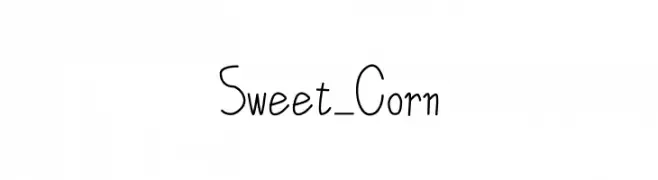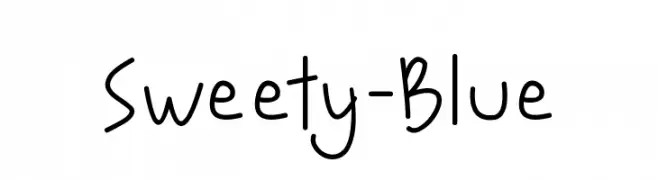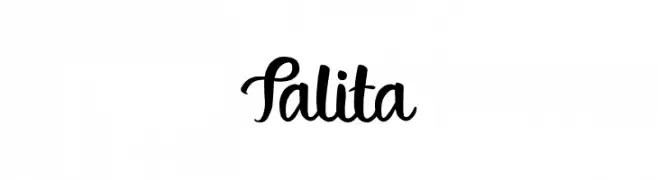
A playful, handwritten font with tall, narrow letters and a whimsical style.
A playful, handwritten font with smooth curves and a casual style.
A bold, handwritten font with a dynamic and expressive style.
A playful and elegant script font with dynamic strokes and modern flair.
A playful and elegant script font with smooth, flowing lines and a handwritten feel.
A graceful and fluid script font with elegant, connected strokes.
A bold, geometric font with angular lines and a modern aesthetic.
A bold, geometric font with a modern and futuristic design.
A bold, geometric font with angular lines and a modern, industrial aesthetic.
A geometric, angular font with a modern and technical appearance.